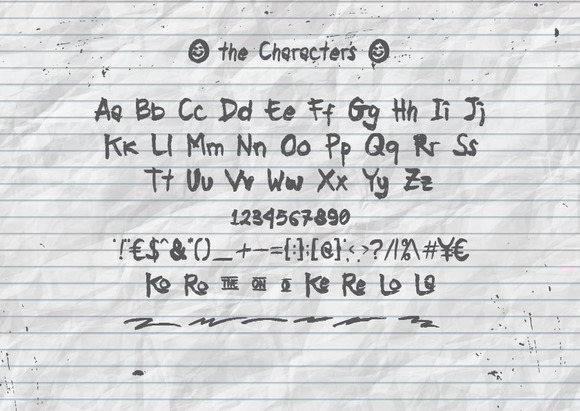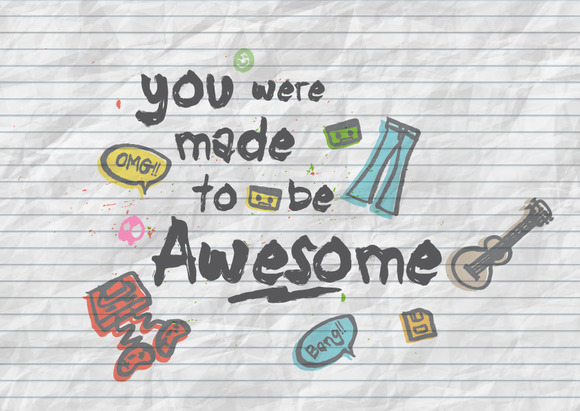
Dust Font: A Playful and Versatile Typeface Inspired by 90s Childhood Doodles
Are you a designer or crafter looking for a unique and creative font to add a touch of nostalgia to your projects? Look no further than Dust Font, a charming typeface inspired by the doodles of children in the 90s. This delightful font is perfect for a wide range of applications, from headings and logos to branding, headlines, magazines, quotes, posters, and more!
The Inspiration Behind Dust Font
Dust Font is a carefully crafted typeface that draws inspiration from the carefree and playful doodles of children in the 90s. The font’s creator aimed to capture the essence of childhood creativity and translate it into a digital format. The result is a font that exudes a sense of playfulness, innocence, and joy.
Key Features of Dust Font
- Unique and quirky design: Dust Font boasts a distinctive, hand-drawn look that sets it apart from more traditional typefaces.
- Highly versatile: This font can be used for a wide range of applications, from headings and logos to branding, headlines, magazines, quotes, posters, and more.
- Easy to read: Despite its playful design, Dust Font is surprisingly easy to read, making it perfect for use in both digital and print materials.
- Customizable: With its extensive character set and range of stylistic alternatives, Dust Font can be tailored to suit your specific design needs.
Uses for Dust Font
Dust Font’s versatility makes it an excellent choice for a wide range of design projects. Here are just a few ideas to get you started:
- Headings and titles: Add a touch of whimsy to your headings and titles with Dust Font’s playful design.
- Logos and branding: Create a unique and memorable brand identity with Dust Font’s distinctive style.
- Magazines and publications: Use Dust Font to add a dash of personality to your magazine or publication’s headlines and articles.
- Posters and flyers: Make your posters and flyers stand out with Dust Font’s bold, eye-catching design.
- Social media graphics: Add a touch of nostalgia to your social media graphics with Dust Font’s retro-inspired style.
Tips for Using Dust Font Effectively
To get the most out of Dust Font, here are a few tips to keep in mind:
- Use it sparingly: While Dust Font is a beautiful and eye-catching font, it can be overwhelming if overused. Use it sparingly to create visual interest and add emphasis.
- Experiment with colors: Dust Font looks great in a range of colors, from bold and bright to pastel and muted. Experiment with different colors to find the perfect look for your design.
- Pair it with complementary fonts: Dust Font pairs well with a range of other fonts, from sans-serif fonts like Arial to script fonts like Pacifico. Experiment with different pairings to find the perfect combination for your design.
Dust Font is a unique and versatile typeface that is sure to add a touch of nostalgia and whimsy to your design projects. With its playful design, extensive character set, and range of stylistic alternatives, this font is perfect for designers and crafters looking to create something truly special. So why not give Dust Font a try and see how it can elevate your designs to the next level?